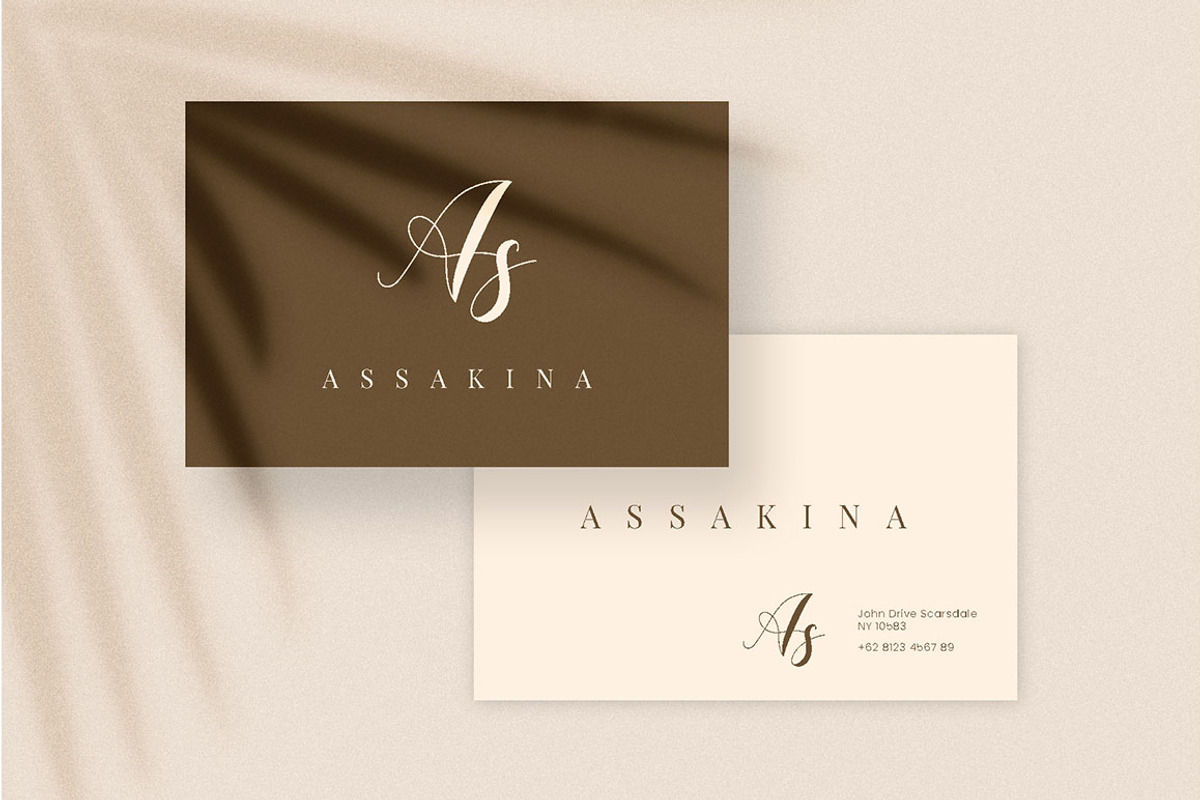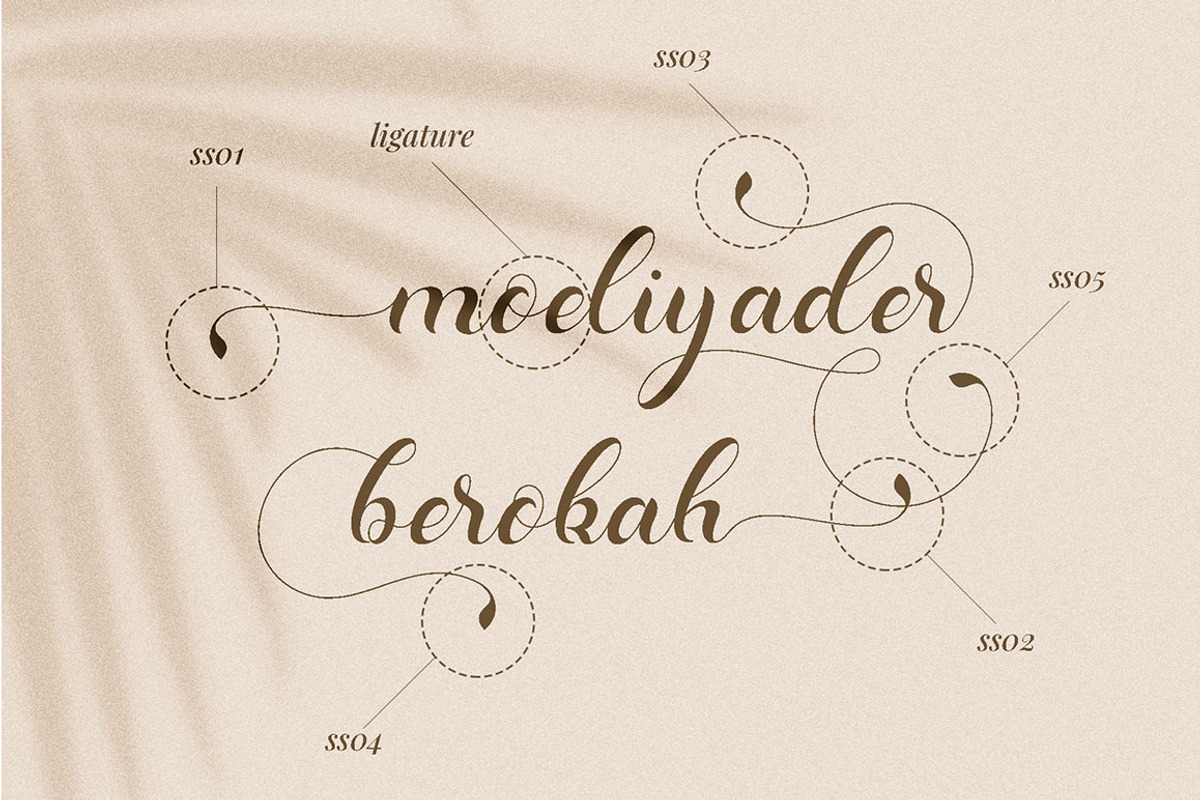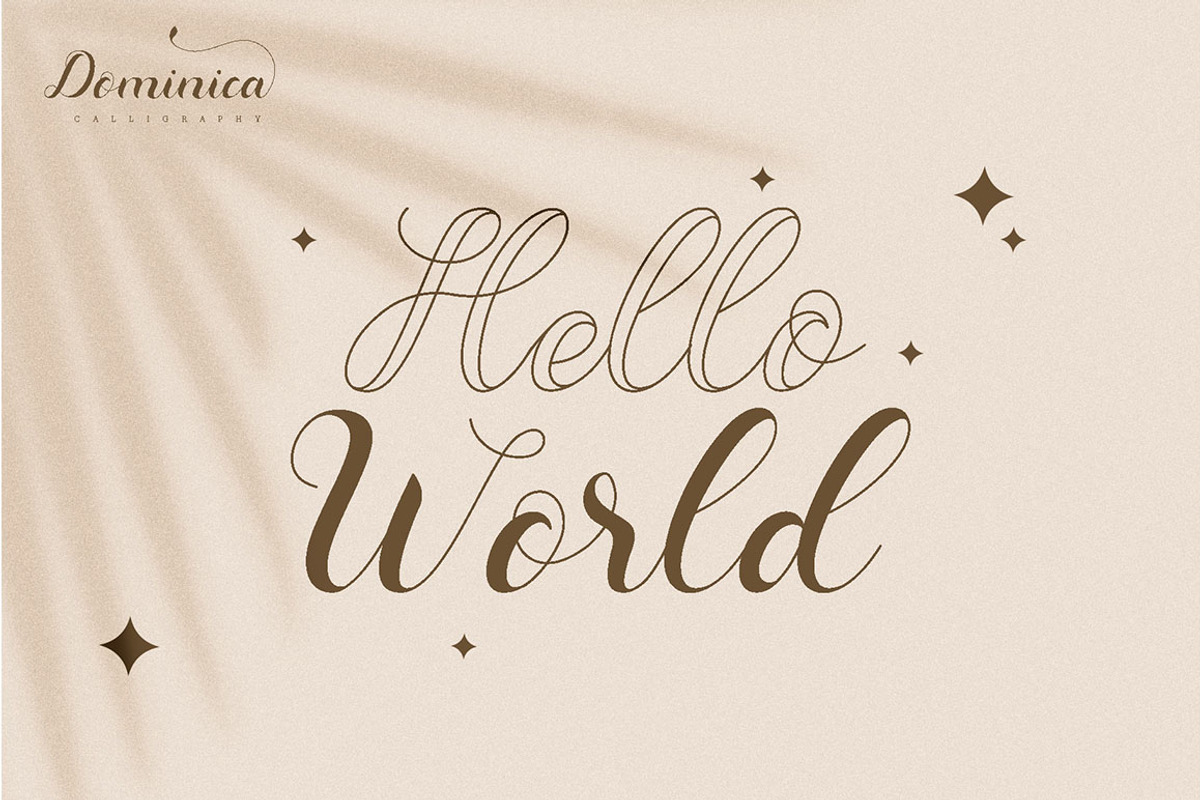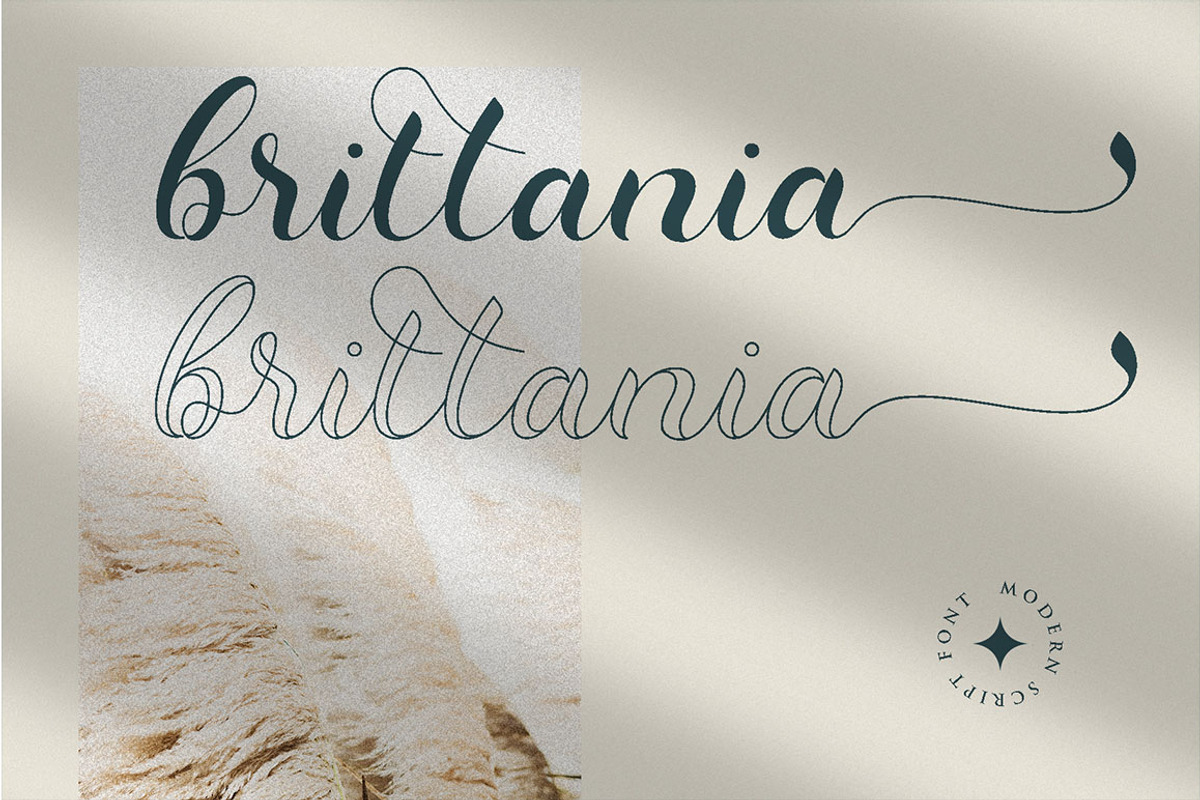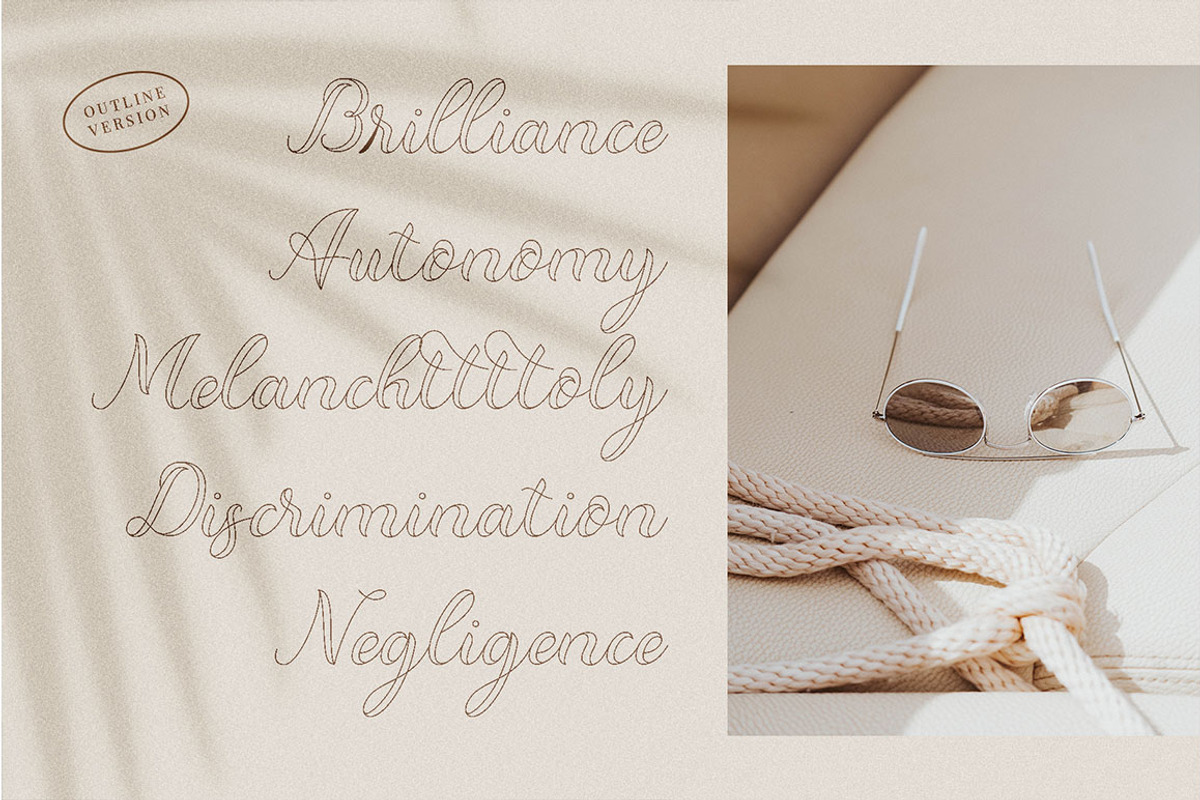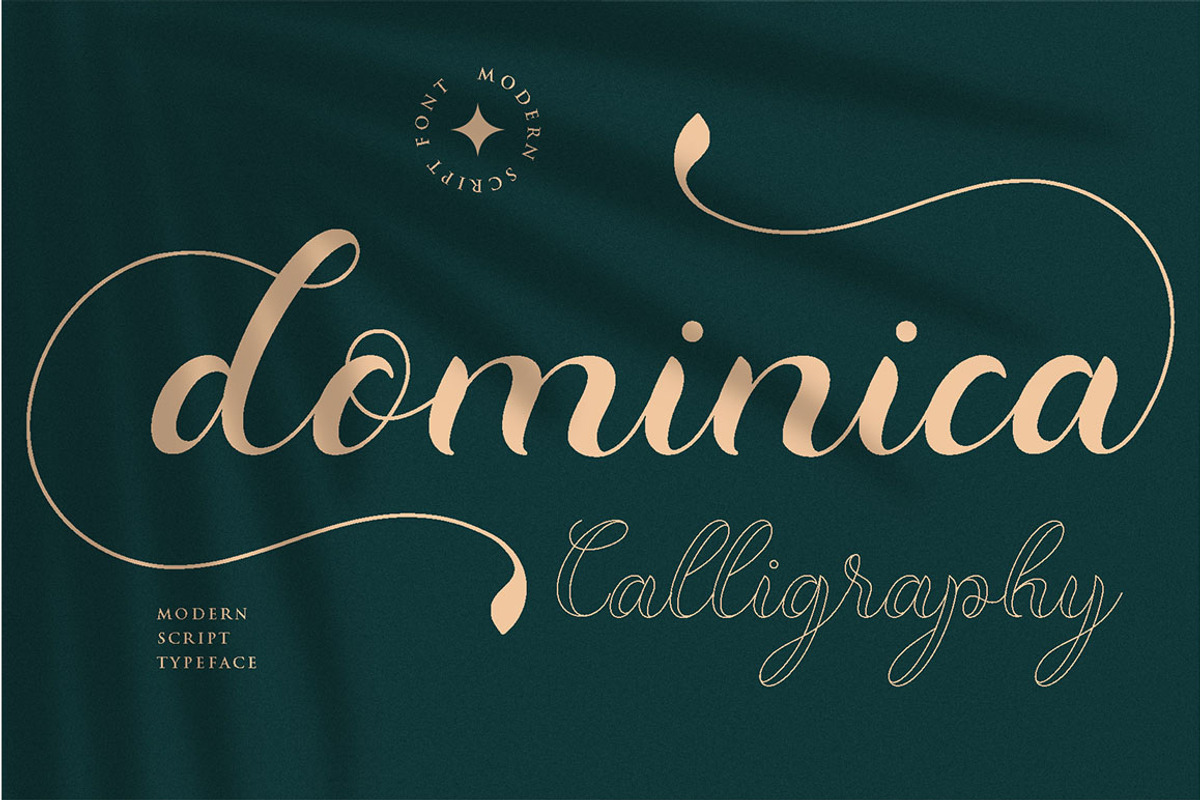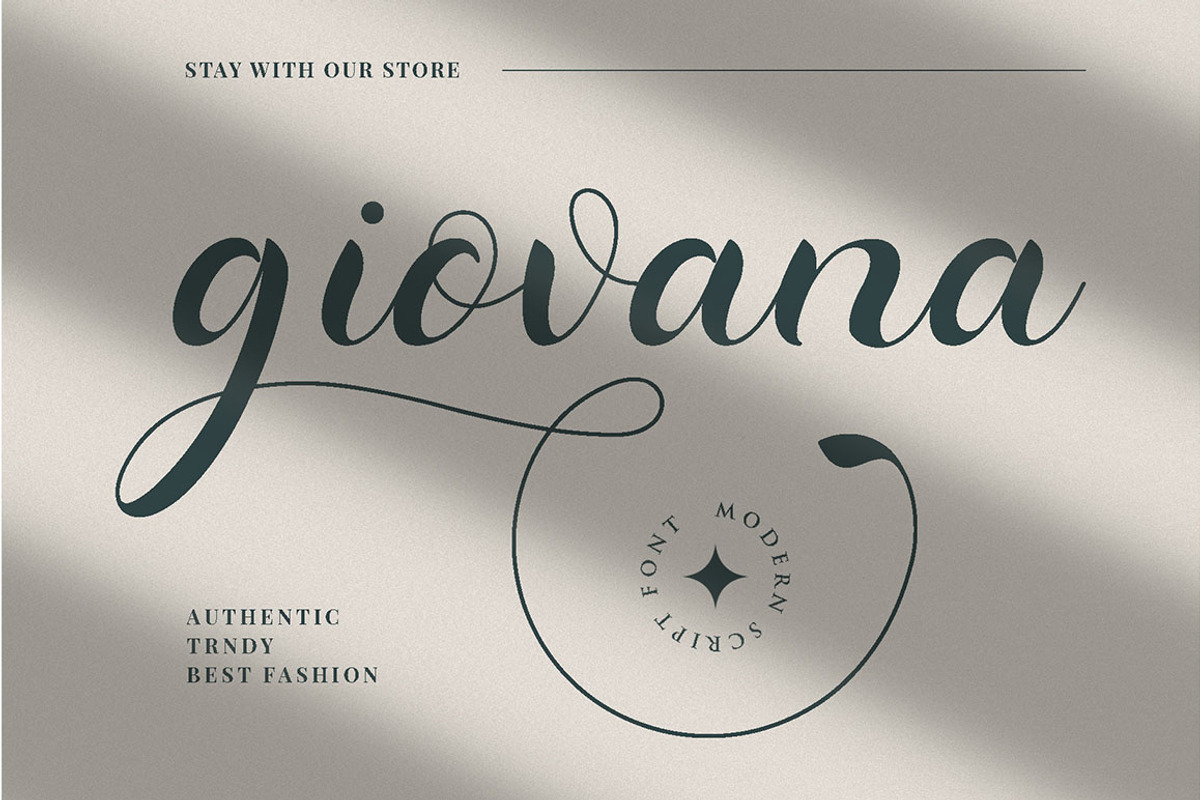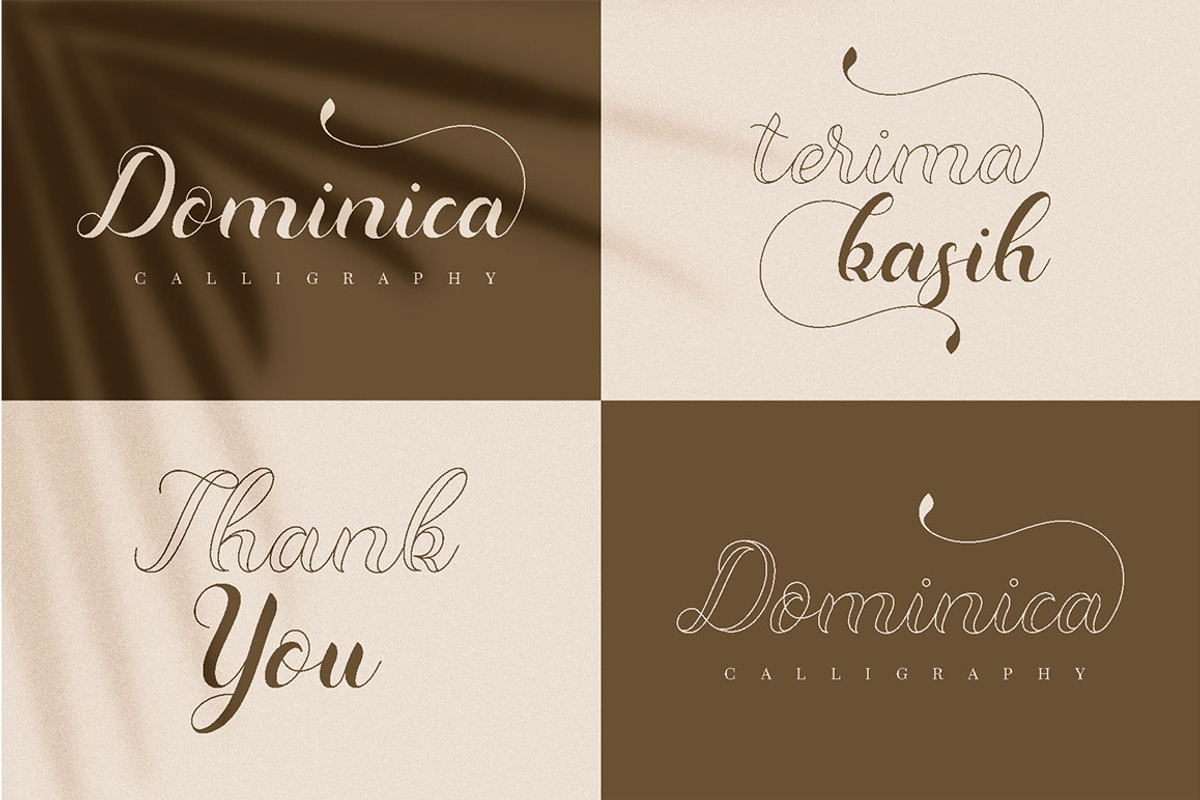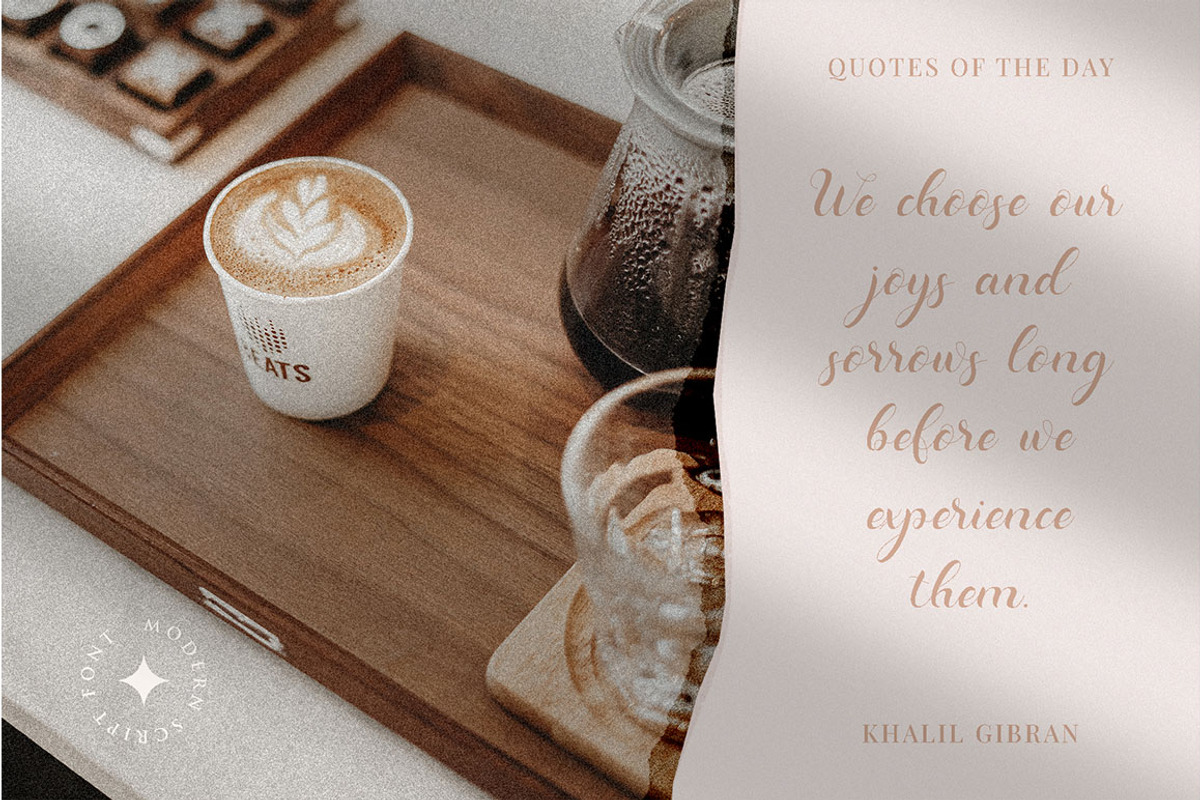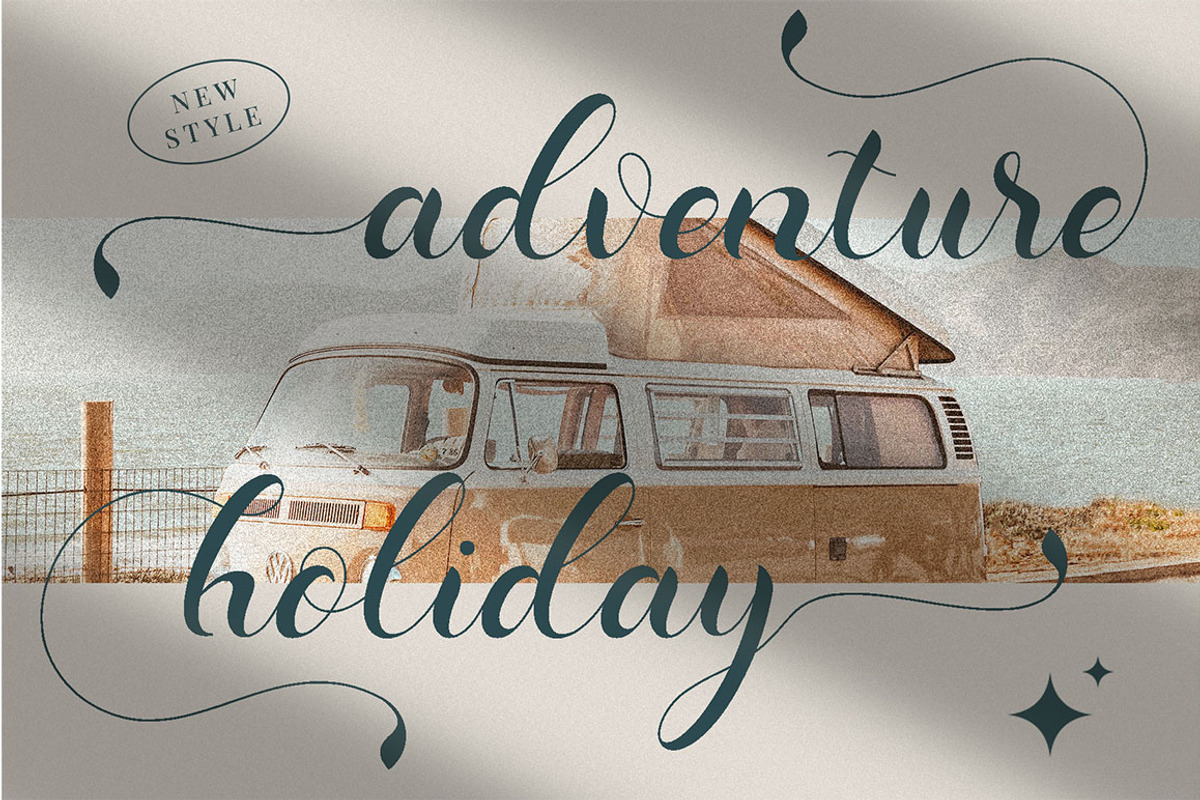
Dominica Calligraphy Script
Introducing Dominica Calligraphy is a balanced, subtle, elegant and stylish handwritten font. It has beautiful character. This font comes with a matching Outline/Monoline version. Perfectly match the design of invitation cards, company logos, movie titles, movie names, wedding invitation cards, business cards, book titles, brand names and various other designs.